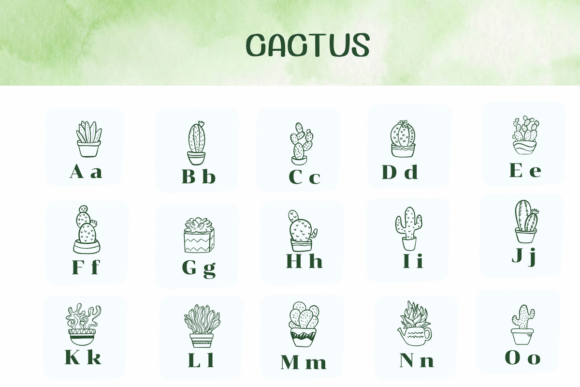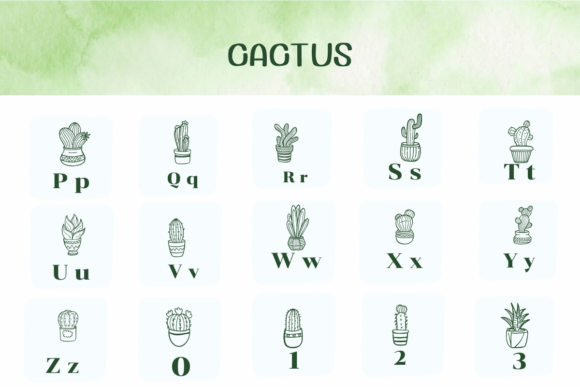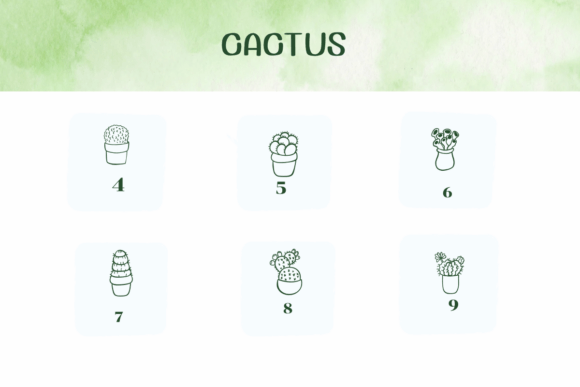
Cactus Font
Cactus is a dingbats font with a natural sketch style. This font can enhance your creative projects such as wedding invitations, DIY, crafts, decorations, logos, and many other creative ideas.